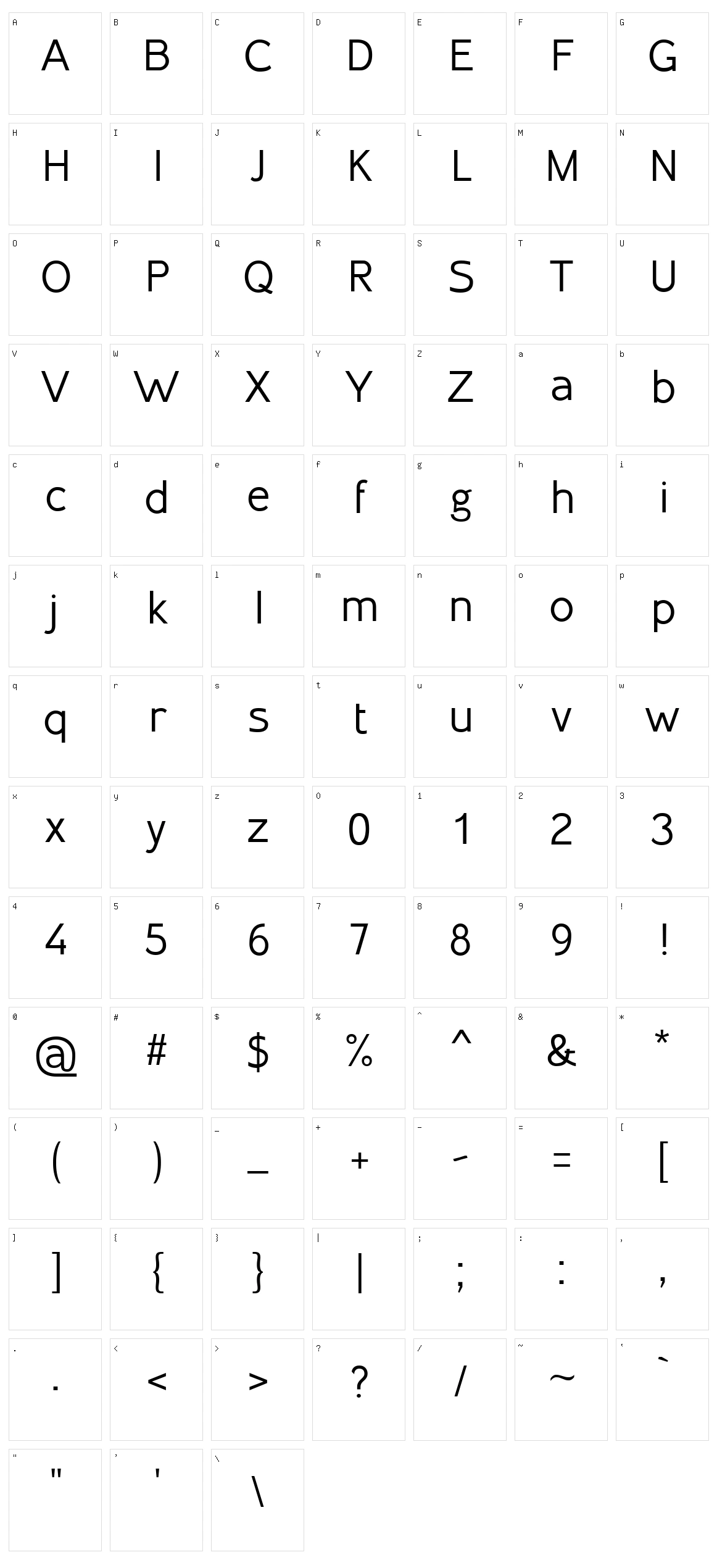
It comes in 6 styles: 3 uprights and 3 italics.
Each weight includes extended language support, ligatures and more.
¶ 490 gliphs each variant (2940 total)
¶ Standard + discretionary ligature
¶ Alternative style set
¶ Small capital
¶ Latin extended
¶ Lining + Oldstyle figure linear or tabular
¶ Numerator + Denominator + Subscript + Superscript
Now, the family Inprimis are in version 1.26 and completed these variant:
55 Regular
56 Italic
65 Medium
66 Medium italic
75 Bold
76 Bold italic
Work in progress:
45 ligth
46 light italic
85 black
86 black italic
Inprimis is incredibly useful on most of creative field like magazine, poster, book, composition.